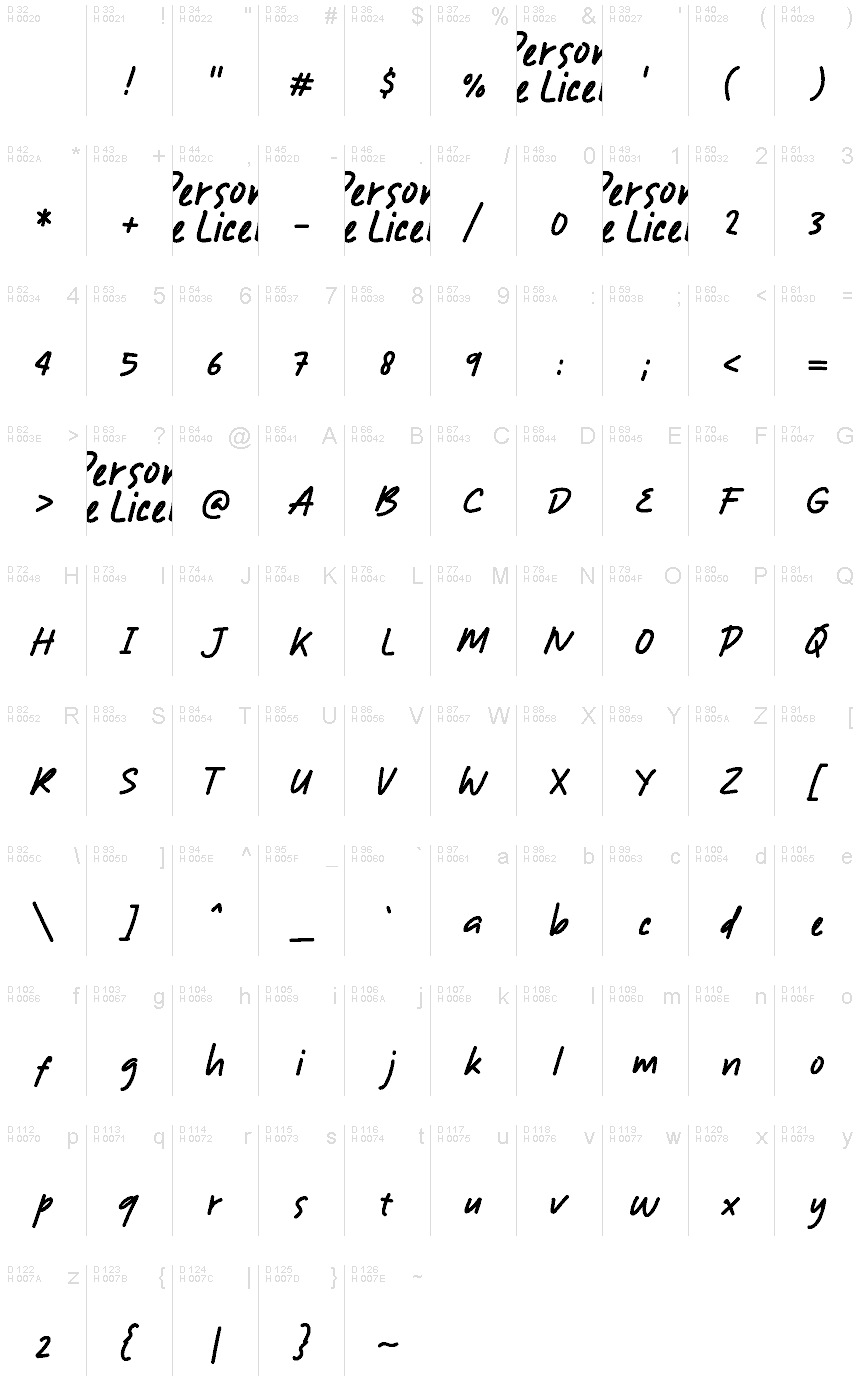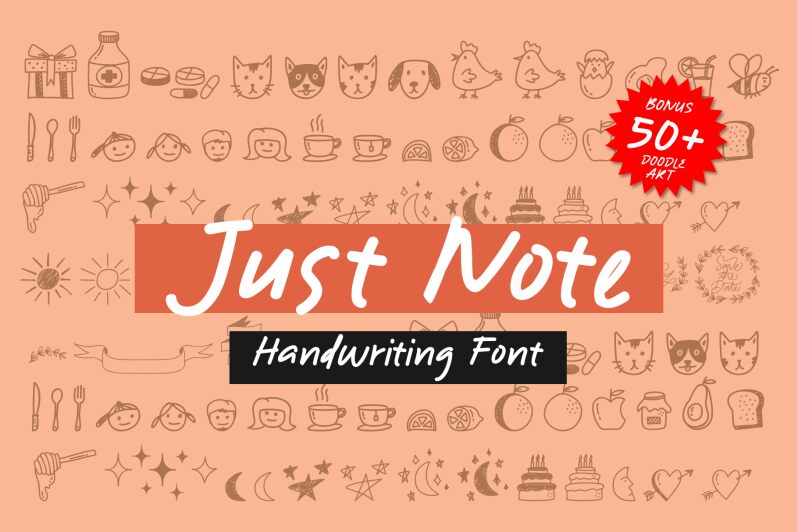
Just Note font by Java Pep is a free handwritten font offering a smooth flow and casual yet contemporary feel. With an expressive character and effortlessly chic look, it adds an aesthetic suave to any of your personal projects from digital to print use.
It’s ideal for branding projects, book covers, collages or scrapbooks, reading websites, blogs and articles, social media pages, greeting cards or invitation cards. Use it also in product packaging or labels for fashion items and self-care products such as soaps and scents.